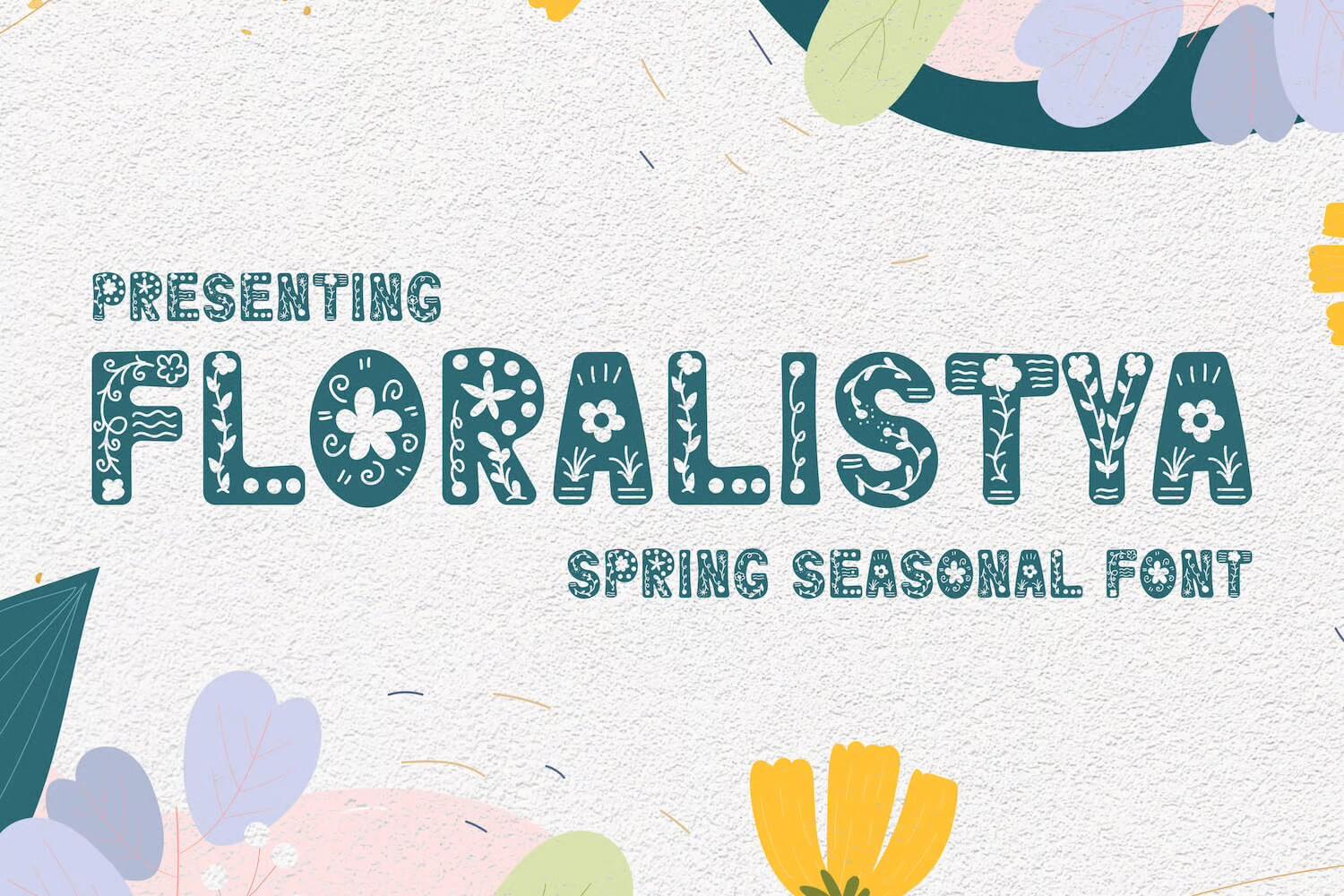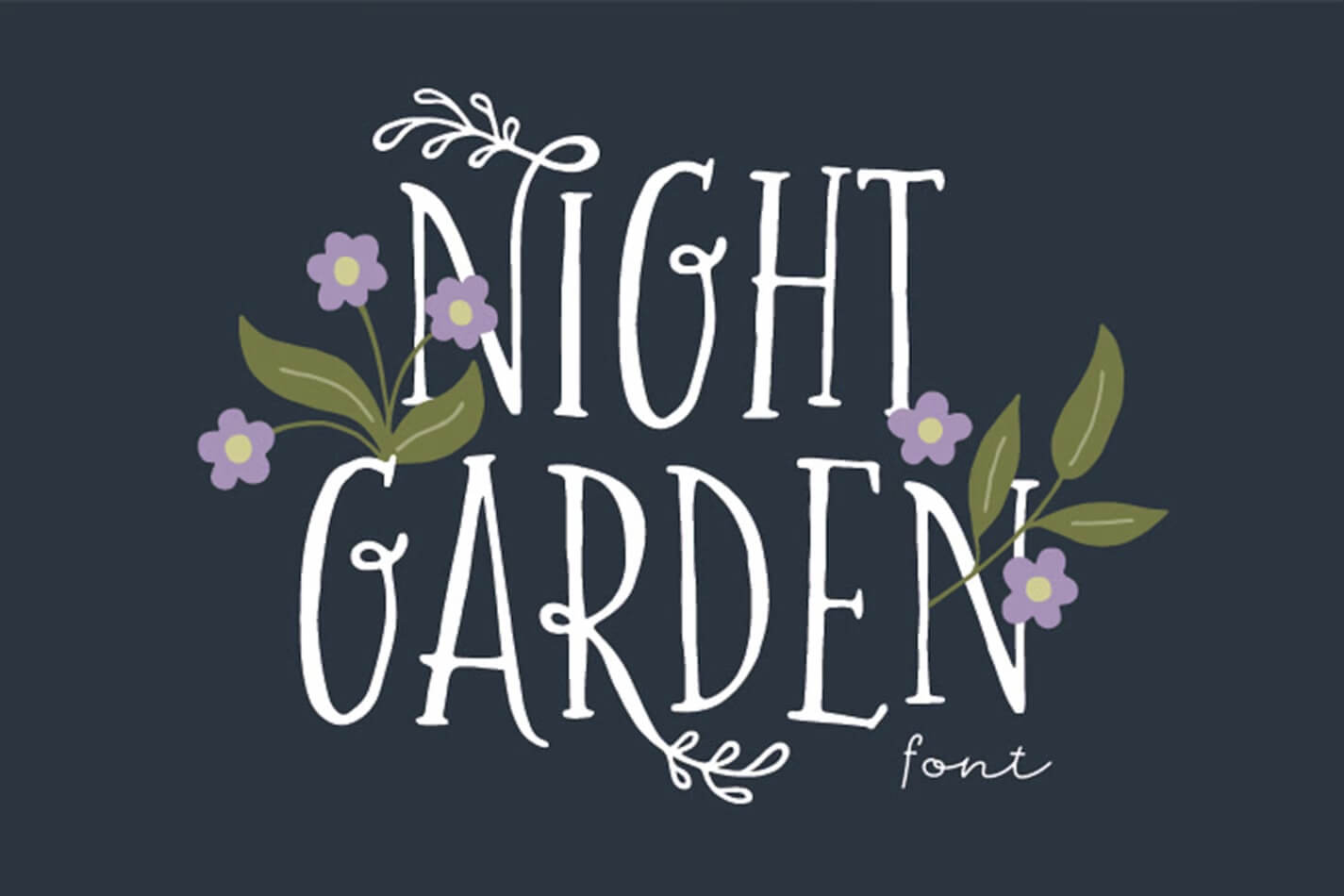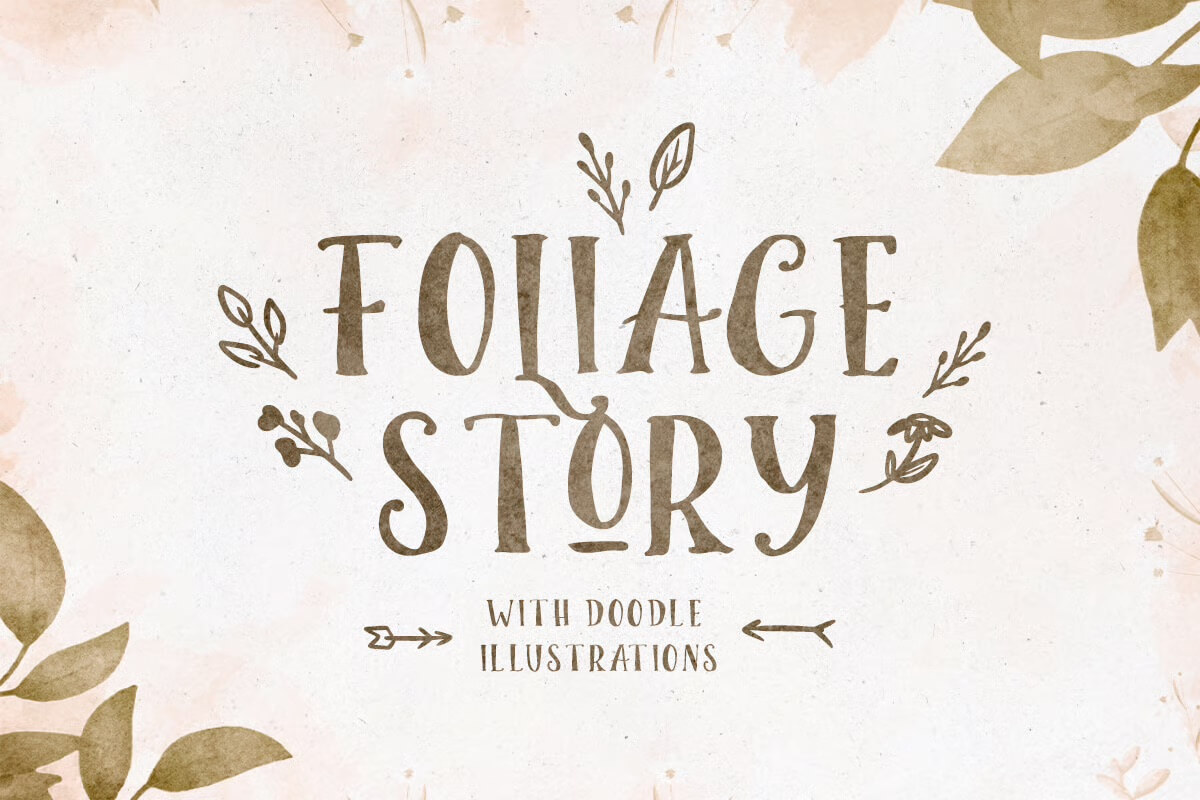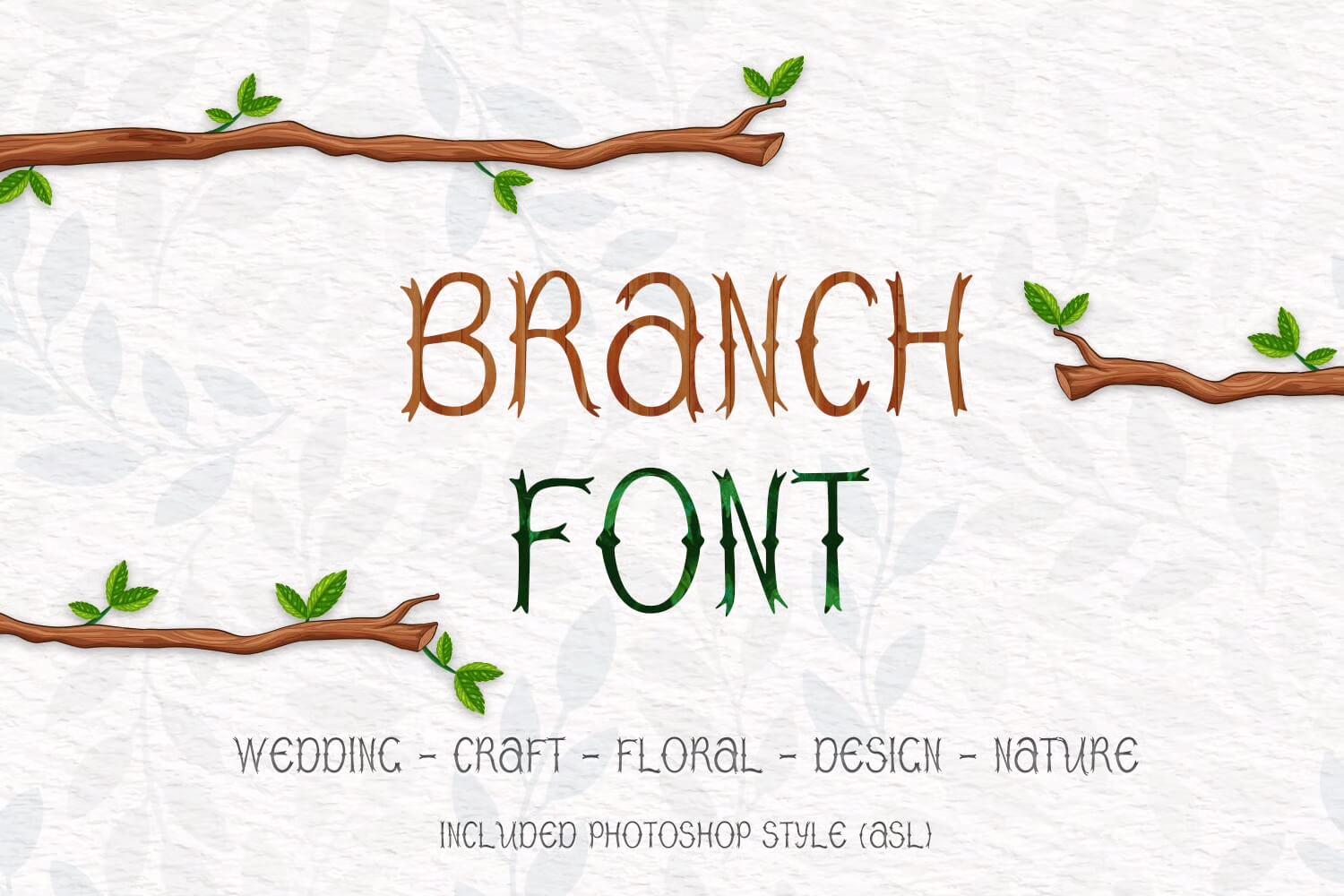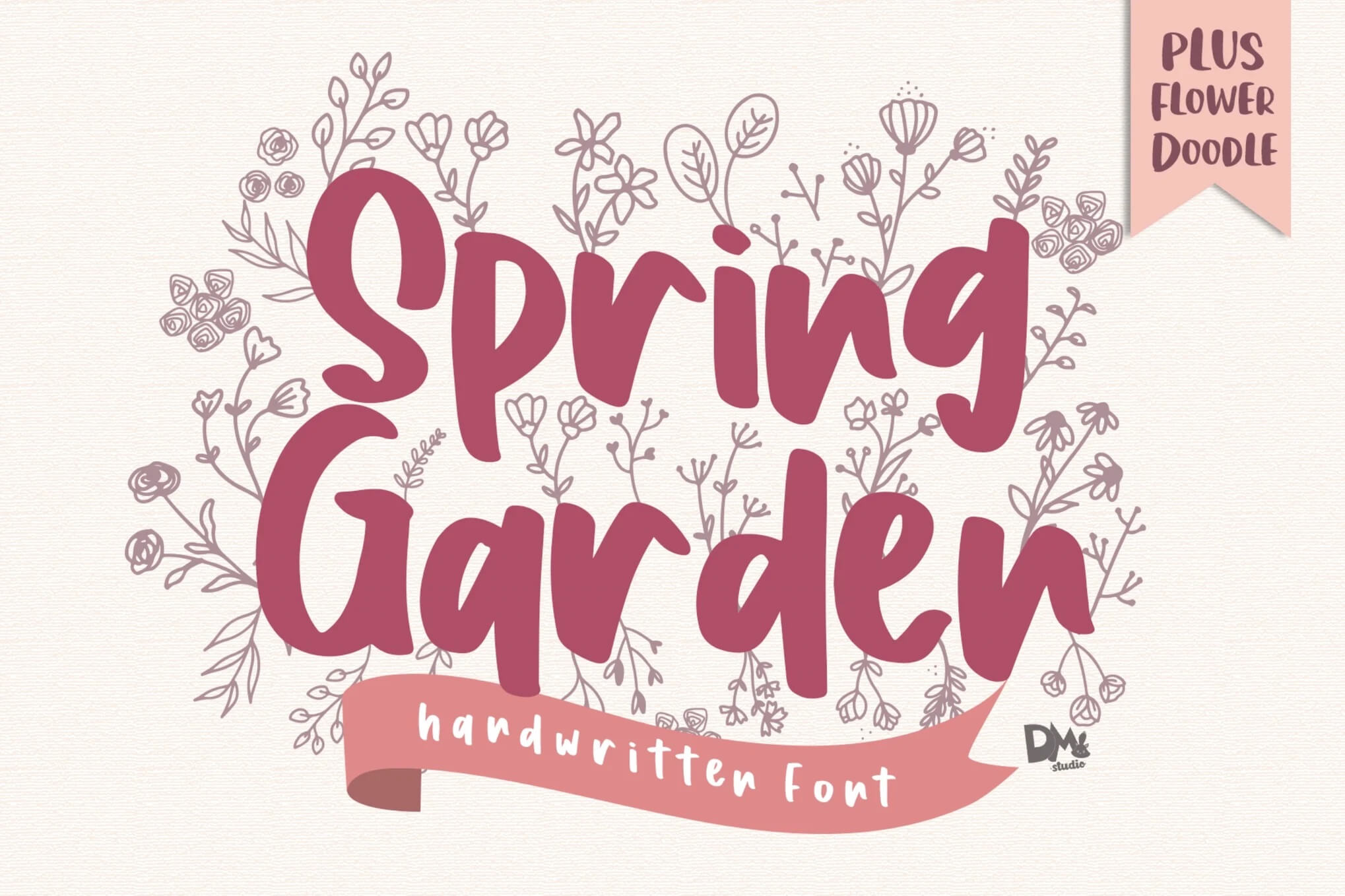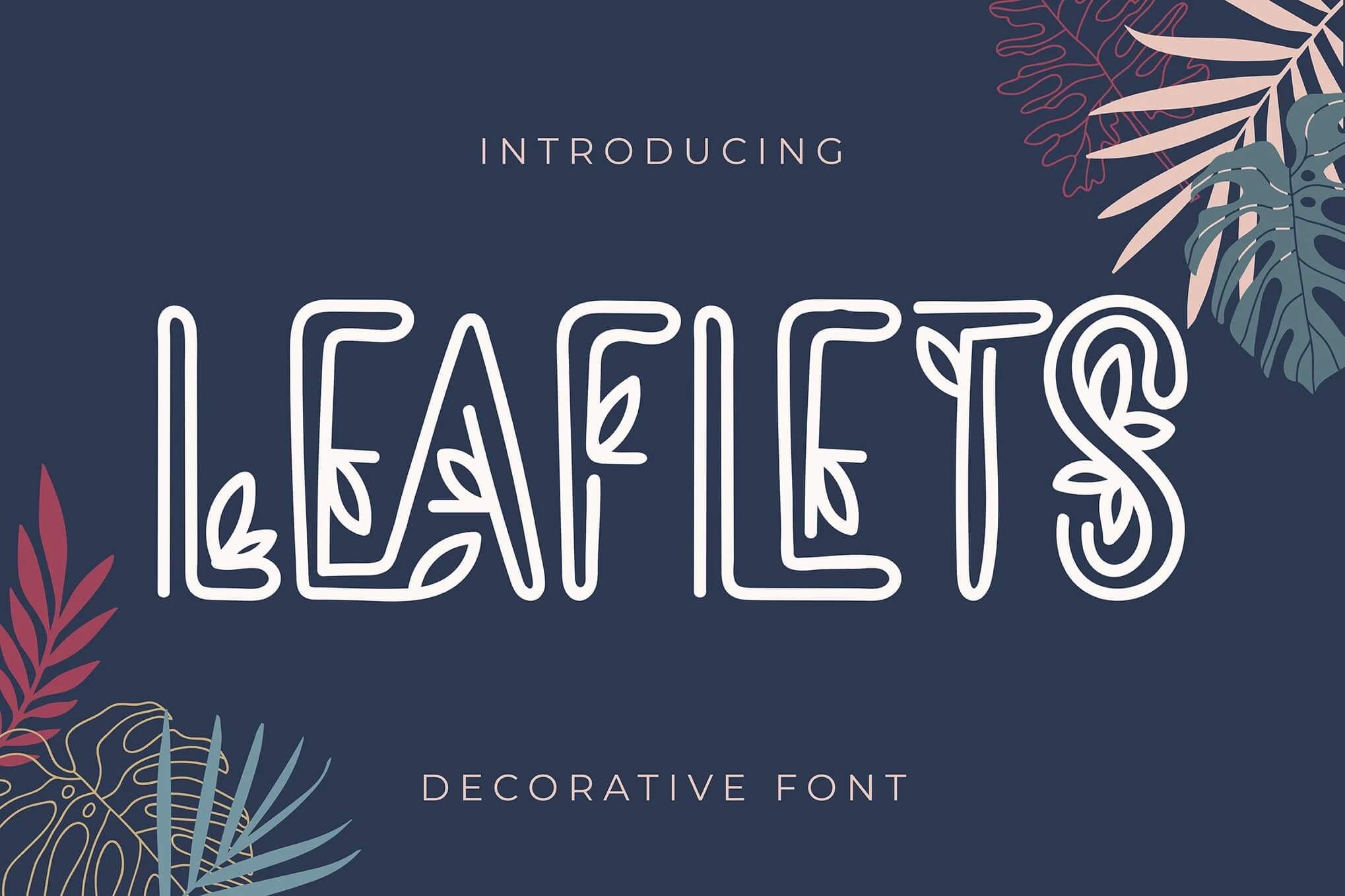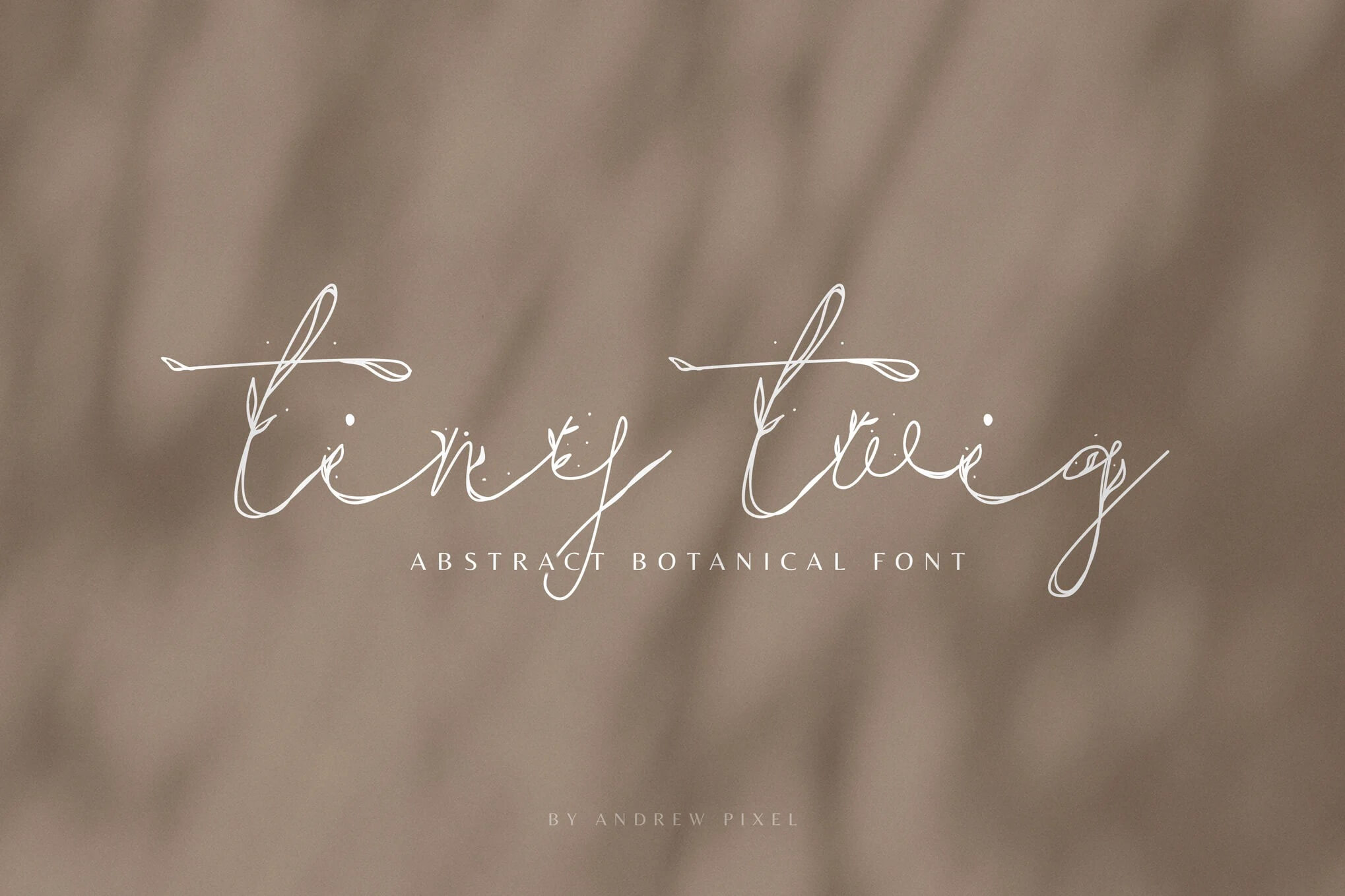
8 Fonts with Leaves
If you’ve ever looked at a design and felt something warm and grounding without knowing why, chances are a tiny detail made it happen.
This is where a leaf font comes in. In this guide, we’re talking about leaf font ideas, free downloads, where to find the best styles, and how to use font images to add a natural feel to your work.
If you’re working on a new project, this article will help you understand how to use leaf-inspired typography with confidence and ease.
Floralistya Font
Floral-themed font "Florlistya" is displayed on a textured background with colorful flowers and leaves, promoting a spring seasonal style.
Floralistya feels fresh and elegant with a soft floral vibe that works beautifully for logos, wedding invites, and packaging. It mixes friendly curves with clear letterforms, includes multilingual support, and comes in otf and ttf formats for easy, professional use.
Night Garden
Text reads "Night Garden" with floral decorations, featuring purple flowers and green leaves on a dark background. Stylish and decorative design.
Night Garden feels playful and charming with all caps that echo hand drawn petals and leaves. It includes nature inspired ligatures and alternates that pop up in apps supporting OpenType. Perfect for weddings, branding, and anything needing a whimsical floral touch.
Foliage Story
Decorative text reads "Foliage Story" with surrounding leaf doodles, on a textured background. Subtext says "with doodle illustrations" with arrows.
Foliage Story feels warm and handmade with a charming serif look and playful doodle extras that breathe life into designs. It’s perfect for branding, logos, wedding invites or vintage projects and works nicely across sizes while keeping an organic, friendly vibe.
Branch Font
Illustrated branches with green leaves frame the words "Branch Font," showcasing a nature-inspired typeface suitable for wedding, craft, floral, and design projects.
Branch is a playful display font inspired by wood textures and nature. It feels casual and friendly, perfect for outdoor, eco, and craft projects. The rounded letterforms give it warmth and charm while staying readable for logos, headlines, and packaging.
Green Ecosystem
Text reads "Green Ecosystem" with leaves and branches, promoting a quirky nature-themed font. Background features green and orange colors.
Green Ecosystem is a playful, nature-inspired display font that feels bouncy and organic. Its thin and thick strokes evoke leaves, branches, and roots while six lively variations let you mix and match for logos, kids’ projects, invitations, and packaging with a handcrafted, whimsical vibe.
Spring Garden
Whimsical floral-themed text design reads "Spring Garden" with decorative flowers, promoting a handwritten font called "Plus Flower Doodle."
Spring Garden feels like a sunny note passed from a friend written in playful, handwritten letters with charming floral doodles tucked in. It mixes casual warmth with a touch of whimsy, perfect for greeting cards, kids projects, and any design that needs a friendly, organic vibe.
Leaflets
Decorative font poster titled "Leaflets" with botanical design elements. Background is a muted dark blue with colorful leaf illustrations.
Leaflets is a charming decorative script that feels like handwritten calligraphy, perfect for invitations, branding, and greeting cards. It includes many alternates, ligatures, and PUA encoded glyphs so you can easily access stylish variations in common design apps.
Tiny Twig
Elegant "tiny twig" handwritten font displayed on a soft beige background, described as an abstract botanical font by Andrew Pixel.
Tiny Twig is a charming decorative display font with hand drawn botanical leaf details that feel fresh and personal. It pairs beautifully with classic serif or sans fonts and works great for logos, wedding invites, posters, social posts, and anything needing a delicate natural touch.
What makes a leaf such a powerful design element?
At first I didn’t understand it. When I was a kid and just starting out on my less-regular freelance journey days, the only thing seemed to matter about a font was how it looked.
Then, one day, while no longer browsing fonts, I stumbled upon a leaf font. It had these soft curves and tiny vine-like details. That day, I realised just how something as simple as a leaf could swing the entire feeling of a design.
A leaf brings softness. It brings movement. It brings that natural feel you can’t reproduce with a standard letter shape.
When you add it as a design element, especially as free downloads or vector graphics, more than decoration becomes attached to it. It becomes instead the spirit of the work itself.
How do leaf fonts change the overall typography of your design?
It is often described as the body language of your designs. Using two different fonts for the same words can produce entirely different feelings.
I designed a logo for a small handmade beauty brand. Six or seven different typefaces were tested, and each one seemed too stiff. And then we tried a leaf capital, and that, with a bit of vine, made everything wonderful.
You’re working with the organic shapes of nature, whether that’s styles inspired by Autumn or Spring leaves. This relaxed effect can be likened to a bending wall.
A leafy typeface is more human. It adds a story. It tells the reader something to feel as well as something to read about.
Are autumn leaf styles useful for modern design projects?
I always used to think the autumn leaves can only be used this season, thrown up again next year useless lie.
Oh, no. It turns out that autumn leaves-inspired fonts also work really well year-round. They have a rustic feel that’s grounded and warm at heart.
If you are designing packaging for handmade products, invitations to weddings or meetings, things monogrammed with wellness brands and businesses with a view to nurturing people while leaving the earth unscathed in its passing, almost anything with an earthy theme, these styles give instant charm.
If we use a modern typeface inspired by leaf fonts, we really must be careful not to overuse leaf shapes.
Even just a hint of texture or a small leaf accent in letters can have a big effect on how your design comes across as being natural without feeling like it has any set theme.
What about spring leaves styles? When do they work best?
The aptly named font for spring leaves not only breathes another breath into text, but carries a sprig of life of its own. New. Wholesome. Airy. Bright.
It is what I normally use for clients to fancy up last-minute work. Think skincare, gardening, and coaching. Products based purely on nature. whatever that suggests growth or opportunity.
Recently, one of my clients was launching a new line of products, and I had them use a very light, delicate spring-leaves font for their promotional materials. It held no stare. It asked for nothing. It simply was.
It gave that type of solid self-assurance which only comes with well-chosen typefaces. When something brand new is quietly created in design, that is when you know you’ve actually made the right choice.
How does a leaf font help your design look more unique?
But sometimes you look at it and say, ‘This is too easy for work’I know from experience. So much of it looked carefully wrought without enough of a personal touch.
A leaf font solves that problem by giving your letters detail without overwhelming the entire design. It subtly alters the word, giving it a different tone altogether.
A unique leaf shape around a letter, or a tiny branch twining through a stroke, gives you this hand-embellished look without the drudgery of hours of rendering.
It’s the quickest way to make something distinctive while still remaining in character.
What are the best dingbat fonts for leaf designs?
It’s Lifesavers dingbat fonts for some reason; more designers don’t use them. They’re really just icon sets guised as fonts, but that aside.
When even the shape of a leaf, they could go and play for days on end. The most useful to me in terms of shapes on leaves that I reach for three are crownleaf dingbat, floralia dingbat, and petaline dingbat.
Crownleaf dingbat has an elegant, regal feel and looks particularly good on invitations. Floralia dingbat is more playful; it’s an ornament, good for labels or little decorations.
Petaline dingbat is airy and playful, which works beautifully in more contemporary designs. Using dingbat fonts, you can sprinkle in some leaf forms with no need for that extra stock photo or vector packet.
How do you maintain quality when using free leaf fonts?
The letters you use really do matter. A leaf font that looks cheap can be simply magnificent under other circumstances.
Free let-type downloads or designs that are poorly based on outlines ruin your final project’s professional look.
Then I learned this lesson the hard way years ago. I’d used a pretty bit of type that looked absolutely right until I enlarged it, and all the pixels went up for grabs. I had to redo everything.
Always check to make sure of quality:
• Is the font vector-based?
• What are the different weights that might appear in your download
• How letters react when they’re larger than 14 points or so
• Do leaf details in a lowercase a, for instance, tend to become elongated under stress?
What you want is something that looks different enough yet performs like a professional typeface rather than a decorative one waiting to break down under any sort of pressure.
When should you use leaf fonts in a design?
There’s no strict rule. But I’ve learned that a leaf font works best when you want to add softness or movement to a piece without distracting from the message. I’ve used them in:
• Branding and logos
• Product packaging
• Social media graphics
• Event invitations
• Seasonal promotions
• Hand-lettered designs
Any project that benefits from a natural feel or organic look will shine with leaf elements. Just be intentional. Not every design needs a leaf. But when it fits, it elevates the whole piece.
How do you avoid overusing leaf elements in your typography?
I made this mistake early on. I was so excited about our new Gothic font that I used it to death, didn’t I?
Every headline. Every variation of the logo. Every social message. And the effect was… heavy. Like the design was trying too hard.
The key is in the balance. With one strong element in a leaf font, pair it up with more everyday-looking type.
Let the leaf carry character, and let the other font do routine work. Beauty comes from the opposition of things. And contrast keeps your reader from being overwhelmed.
I mean, that’s the basic test for everything in print.
Can you mix leaf fonts with other decorative fonts?
On the other hand, if you mix two display fonts, particularly ones in the same family, more often than not, it just looks like wearing two matching statement necklaces together, for it can work too, but often doesn’t.
With any other style, however, I pair a leaf type fon,t the question I am mostly asking is:
• Is this helpful or distracting?
• Is the leaf still earned?
• Does the crisis technique maintain a hierarchy of type?
Almost always the perfect partner is a simple sans. It brings things back down to earth. Crisp, unembellished, modern. The leaf font emerges as the star without having to compete with anything else.
How do you download the right leaf fonts quickly?
Many a night I’ve spent, later than was good for me, leafing through endless free fonts or premium bundles when a simple one would have done. Over time, though, the action adds up into a habit that saves hours.
Here is what I do:
I don’t search for specific ones; I search by theme.
I seek out natural feel tags like leaf, vector, botanical, plant, nature to aid in my search.
Rather than looking at a detailed examination of various listings, I go through looking at the previews in a hurry for the ones I want I hope to find their handouts.
Only designs with clean outlines get onto my shortlist.
I test them right away inside the project.
This process speeds up the process, giving me just what I am after instead of endless graceful font images that are not liked by it.
How does a leaf font affect the emotional tone of your design?
Instead, it’s easy to inadvertently skip the part. In the eyes of many people, fonts are just for show. Yet emotionally, fonts are miles wide. For the energy of what you say, even a little leaf font can change.
• The colors of fall leaves feel nostalgic and warm.
• The styles of spring leaves feel hopeful and fresh.
• Strong vine forms seem confident.
• Infinitesimal sketches are soft and light.
Once you understand what effect a leaf has on people’s mood, picking the right style becomes second nature; You’re no longer decorating for looks, you begin to pick designs that would hit the right analog zone.